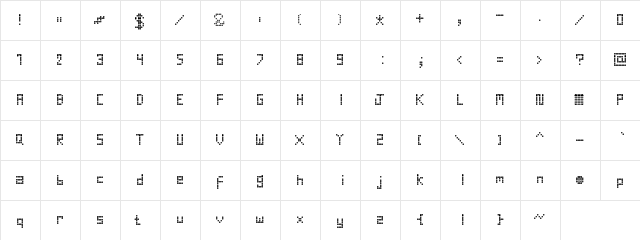
Round Tech Regular
Design Context for Round Tech Typeface
Round Tech channels digital-age aesthetics through its sharp, structured letterforms — ideal for brands that want to signal innovation.
Pro Tip: Use Round Tech in combination with a neutral sans for body text. Let it define the brand voice in headlines while keeping reading comfortable elsewhere.